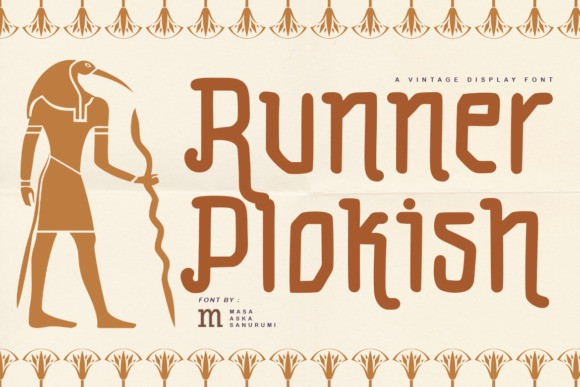
Runner Plokish Font
Runner Plokish Font is an organic and gorgeous handwritten font, defined by simplicity and style. Whether you’re looking for fonts for Instagram or fun typefaces for DIY projects, this font will turn any creative idea into a true piece of art!